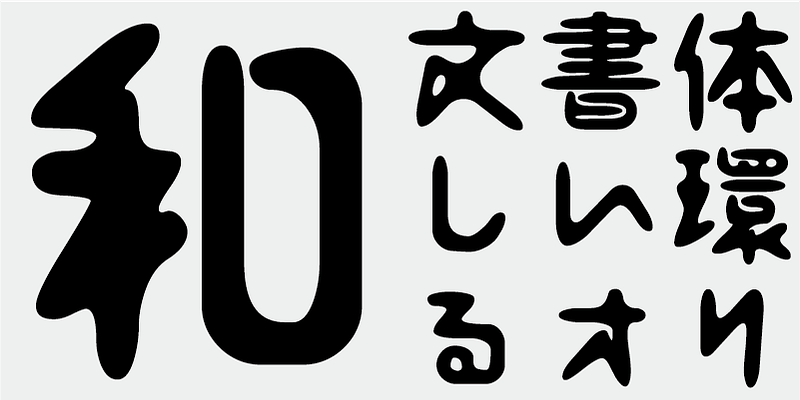
AB Yamabiko B Font Free Download is a unique and dynamic typeface with a bold presence and contemporary flair. Inspired by both Japanese calligraphy and modern design elements, this font is ideal for projects that require an artistic yet legible font, including branding, posters, product packaging, and cultural projects that need a distinctive touch.
AB Yamabiko B combines sharp angles with organic curves, giving it a strong yet fluid visual impact. It's fully compatible with design tools like Adobe Illustrator, Photoshop, Canva, and Figma, ensuring you can easily incorporate it into your creative projects, both digital and print.